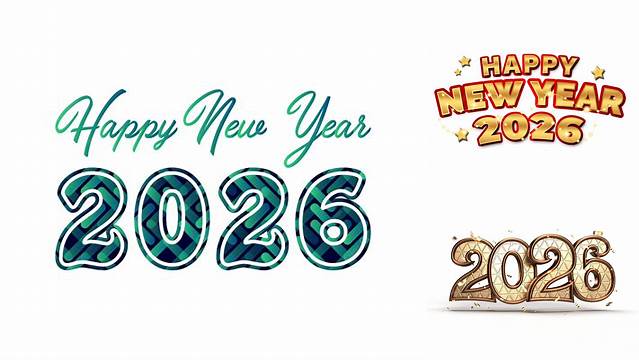
Hey guys! As we gear up for the excitement of 2026, one thing's for sure: we need our New Year's celebrations to be epic. And what better way to add that extra sparkle than with the perfect font? Whether you're designing invitations, creating social media posts, or just want to jazz up your holiday messages, the right font can make all the difference. So, let's dive into the world of Happy New Year 2026 fonts and how you can snag some free downloads! It's all about making your greetings stand out, and I'm here to guide you through every step. Think of this as your ultimate guide to typographic cheer for the coming year. We'll explore different styles, where to find them, and even some tips on how to use them effectively. Let's get this party started with fonts that scream "Happy New Year!"
1. Best Fonts for New Year 2026 Greetings
Choosing the best fonts for New Year 2026 greetings is crucial to setting the right tone for your messages. You want something that captures the spirit of celebration and anticipation for the year ahead. Think about fonts that exude joy, elegance, and a touch of sparkle. For example, script fonts can add a touch of sophistication and flair, perfect for formal invitations or heartfelt messages. On the other hand, bold and modern fonts can convey a sense of energy and excitement, ideal for social media posts or party announcements. Remember, the font you choose should reflect the mood you want to create. Are you aiming for a classic, timeless feel? Or perhaps something more contemporary and trendy? Understanding your desired aesthetic will help you narrow down your options and select the perfect font that makes your New Year's greetings truly memorable. Let's explore some specific font styles and how they can enhance your festive communications. Don't underestimate the power of typography; it's a subtle yet significant element that can elevate your New Year's greetings from ordinary to extraordinary.
2. Free Calligraphy Fonts for New Year 2026
Looking for something fancy and elegant? Free calligraphy fonts for New Year 2026 can add a touch of sophistication to your projects. Calligraphy fonts are perfect for creating a sense of luxury and refinement, making them an excellent choice for formal invitations, elegant cards, or any design that needs a touch of class. Imagine using a beautiful, flowing script to write "Happy New Year 2026" on a stunning backdrop – the effect is simply breathtaking! However, it's important to use calligraphy fonts sparingly and strategically. Overusing them can make your design look cluttered or overwhelming. Instead, pair a calligraphy font with a simpler, more readable font for the body text to ensure balance and clarity. When selecting a calligraphy font, consider the overall style and mood you want to convey. Some calligraphy fonts are delicate and romantic, while others are bold and dramatic. Choose one that complements your design aesthetic and enhances your message. With the right calligraphy font, your New Year 2026 designs will exude elegance and charm, leaving a lasting impression on your audience. Let's explore some specific styles and where you can find these gems for free.
3. Download Free Script Fonts for New Year 2026
If calligraphy is a bit too formal, consider downloading free script fonts for New Year 2026. Script fonts offer a more relaxed yet stylish alternative, perfect for adding a personal touch to your greetings. These fonts mimic handwriting, giving your designs a warm and inviting feel. They're great for everything from social media posts to personalized messages, adding a touch of personality and charm. Think about using a playful script font for a casual New Year's party invitation or a more elegant script for heartfelt holiday cards. The versatility of script fonts makes them a fantastic choice for a wide range of New Year's projects. When choosing a script font, readability is key. While you want something stylish, make sure it's still easy to read, especially in smaller sizes. Also, consider the overall tone of the font. Some script fonts are whimsical and fun, while others are more sophisticated and refined. Select a font that aligns with your message and design aesthetic. With the right script font, your New Year 2026 greetings will feel personal, heartfelt, and stylish. Let's dive into some fantastic options and where you can find them without spending a dime!
4. Elegant Fonts for New Year 2026 Designs
For a touch of class, elegant fonts for New Year 2026 designs are the way to go. These fonts exude sophistication and refinement, perfect for creating a luxurious and polished look. Think of using them for high-end invitations, formal announcements, or any design where you want to convey a sense of elegance. Elegant fonts often feature delicate lines, graceful curves, and a timeless appeal. They can range from classic serif fonts to more modern and stylized options, allowing you to find the perfect fit for your project. When using elegant fonts, consider the overall design aesthetic. Pair them with clean layouts, subtle colors, and high-quality images to create a cohesive and sophisticated look. Avoid using too many fonts in one design, as this can detract from the elegance and clarity. Instead, focus on using one or two elegant fonts sparingly and strategically. With the right elegant font, your New Year 2026 designs will make a lasting impression, conveying a sense of style and refinement. Let's explore some specific examples and how they can elevate your festive creations.
5. Modern Fonts for New Year 2026 Celebrations
If you're aiming for a contemporary vibe, modern fonts for New Year 2026 celebrations are your best bet. These fonts are sleek, stylish, and perfect for creating a cutting-edge look. They often feature clean lines, geometric shapes, and a minimalist aesthetic, making them ideal for social media graphics, digital invitations, and any design that needs a modern touch. Modern fonts can range from bold and impactful to subtle and understated, allowing you to create a variety of different looks. When using modern fonts, consider the overall tone of your design. Do you want to convey a sense of energy and excitement, or a more sophisticated and understated feel? Choose a font that aligns with your message and target audience. Also, pay attention to readability. While modern fonts can be incredibly stylish, make sure they're still easy to read, especially in smaller sizes. With the right modern font, your New Year 2026 celebrations will have a fresh, contemporary feel. Let's check out some top modern font choices to make your designs pop!
6. Festive Fonts: New Year 2026 Free Download
Who doesn't love a festive font? Getting a New Year 2026 free download is even better! Festive fonts are designed to capture the joyful and celebratory spirit of the holiday season. They often feature whimsical details, playful shapes, and a sense of fun. Think of fonts with stars, sparkles, or other festive elements that add a touch of magic to your designs. These fonts are perfect for creating eye-catching invitations, cheerful social media posts, and any project that needs a dose of holiday cheer. When using festive fonts, don't be afraid to get creative. Experiment with different colors, sizes, and layouts to create a truly unique and memorable design. However, be mindful of readability. While festive fonts are fun, make sure your message is still clear and easy to read. Use them sparingly and pair them with simpler fonts for body text to ensure balance and clarity. With the right festive font, your New Year 2026 celebrations will be filled with joy and excitement. Let's uncover some awesome free downloads to get the party started!
7. Unique Fonts for New Year 2026 Greetings
Want your greetings to stand out? Unique fonts for New Year 2026 greetings are the answer! These fonts offer a fresh and distinctive look, perfect for making your messages memorable. Think outside the box and explore fonts that are unconventional, artistic, or simply different from the norm. Unique fonts can add personality, character, and a touch of creativity to your designs. They're great for everything from personalized cards to eye-catching social media posts. When choosing a unique font, consider your target audience and the overall tone of your message. Do you want to convey a sense of playfulness, sophistication, or something else entirely? Select a font that aligns with your vision and enhances your message. However, be mindful of readability. While unique fonts can be visually striking, make sure they're still easy to read, especially in smaller sizes. Use them strategically and pair them with simpler fonts for body text to ensure balance and clarity. With the right unique font, your New Year 2026 greetings will leave a lasting impression. Let's find some fonts that are sure to turn heads!
8. Best Font Styles for New Year 2026 Cards
Choosing the best font styles for New Year 2026 cards is essential for creating greetings that truly shine. The font you select can set the tone for your entire card, conveying everything from elegance to playfulness. Consider the overall aesthetic you're aiming for when making your choice. For formal cards, elegant serif or calligraphy fonts can add a touch of sophistication. For more casual greetings, script or sans-serif fonts might be a better fit. Think about the message you want to convey and choose a font that complements it. A heartfelt message might pair well with a warm, handwritten-style font, while a festive celebration card could benefit from a bold, eye-catching font. Don't be afraid to mix and match fonts, but be sure to do so sparingly and with intention. Pairing a decorative font with a simpler one can create a balanced and visually appealing design. With the right font style, your New Year 2026 cards will be memorable and impactful. Let's dive into some specific font styles that are perfect for New Year's cards!
9. Typography Trends for New Year 2026
Staying up-to-date with typography trends for New Year 2026 can help your designs feel fresh and modern. Typography trends evolve over time, so it's important to be aware of what's current and popular. In recent years, we've seen a rise in bold, geometric fonts, as well as a resurgence of vintage and retro styles. Hand-drawn and script fonts continue to be popular, adding a personal and artistic touch to designs. Consider incorporating these trends into your New Year 2026 greetings to make them feel contemporary and stylish. However, it's important to balance trends with timelessness. While it's great to experiment with new styles, make sure your font choices are still readable and appropriate for your message. A trendy font that sacrifices clarity won't be effective in the long run. Think about how you can incorporate current trends while maintaining a classic and elegant feel. With a keen eye on typography trends, your New Year 2026 designs will be both stylish and impactful. Let's explore some specific trends that are set to dominate the New Year!
10. Free Fonts for New Year 2026 Invitations
Planning a New Year's bash? You'll need amazing free fonts for New Year 2026 invitations! The right font can make your invitations stand out and set the tone for your party. Consider the style of your event when choosing a font. For a formal gathering, elegant serif or calligraphy fonts can add a touch of sophistication. For a more casual party, script or sans-serif fonts might be a better fit. Think about the overall theme of your party and choose a font that complements it. A glamorous black-tie event might call for a sleek and modern font, while a cozy house party could benefit from a warm and inviting handwritten-style font. Make sure your font is readable, even at smaller sizes. Your guests need to be able to easily read the details of your party, so prioritize clarity. With the right free font, your New Year 2026 invitations will be both stylish and informative. Let's discover some incredible free font options to make your invitations unforgettable!
11. Where to Find Free New Year 2026 Fonts
Okay, guys, the big question: where to find free New Year 2026 fonts? The internet is a treasure trove of free fonts, but it's important to know where to look. Several reputable websites offer a wide selection of high-quality fonts that you can download for free. Websites like Google Fonts, DaFont, and FontSquirrel are excellent resources for finding a variety of font styles. Be sure to check the licensing agreements for each font you download. Some fonts are free for personal use only, while others can be used for commercial projects. It's important to respect the font creator's terms and conditions. Consider using a font management tool to keep your font collection organized. This can help you easily browse and select fonts for your projects. With a little bit of research and the right resources, you can find a plethora of amazing free fonts for your New Year 2026 designs. Let's explore some top websites and tips for finding the perfect free font!
12. How to Choose the Right Font for New Year 2026
Choosing the right font for New Year 2026 can feel overwhelming, but it doesn't have to be! The key is to consider your project's purpose, audience, and overall aesthetic. Start by thinking about the message you want to convey. Are you aiming for elegance, playfulness, or something else entirely? Choose a font that aligns with your message and reinforces your brand. Consider your target audience. What fonts will resonate with them? A younger audience might appreciate a modern and trendy font, while an older audience might prefer a more classic and traditional style. Think about the overall design aesthetic. Does your project have a clean and minimalist feel, or is it more ornate and decorative? Choose a font that complements your design and enhances its visual appeal. Don't be afraid to experiment with different fonts, but be sure to maintain consistency and readability. With a thoughtful approach, you can choose the perfect font for your New Year 2026 designs. Let's break down the key factors to consider when making your font choice!
13. Font Pairing Tips for New Year 2026 Designs
Font pairing is an art! Great font pairing tips for New Year 2026 designs can elevate your projects from good to amazing. The secret lies in creating a visual hierarchy and balance. One common approach is to pair a decorative font with a simpler, more readable font. This allows the decorative font to stand out while ensuring that the body text remains clear and easy to read. Consider contrasting font styles. Pairing a serif font with a sans-serif font can create a visually interesting and dynamic design. However, be sure to choose fonts that complement each other in terms of weight, size, and overall tone. Limit the number of fonts you use in a single design. Too many fonts can create a cluttered and confusing look. Stick to two or three fonts at most for a cohesive and professional design. Experiment with different font pairings, but always prioritize readability and clarity. With the right font pairings, your New Year 2026 designs will be visually stunning and effective. Let's explore some tried-and-true font pairing strategies to make your designs shine!
14. Best Font Combinations for New Year 2026
Speaking of pairing, let's look at the best font combinations for New Year 2026. Some font pairings are just magic together, creating a harmonious and visually appealing design. A classic combination is pairing a serif font like Times New Roman or Garamond with a sans-serif font like Helvetica or Arial. This creates a timeless and elegant look that's perfect for formal invitations or announcements. For a more modern and playful feel, consider pairing a script font like Brush Script with a sans-serif font like Open Sans. This combination is great for social media graphics or casual party invitations. If you're looking for a bold and impactful combination, try pairing a heavy sans-serif font like Montserrat with a lighter sans-serif font like Lato. This creates a strong visual contrast that's perfect for headlines and titles. Experiment with different font combinations to find the perfect pairings for your New Year 2026 designs. The key is to create a balance and visual interest while maintaining readability and clarity. Let's dive into some specific font combinations that are sure to impress!
15. Free Commercial Use Fonts for New Year 2026
Planning to use these fonts for business? Free commercial use fonts for New Year 2026 are what you need! When using fonts for commercial projects, it's crucial to ensure that you have the proper licensing rights. Many free fonts are available for personal use only, meaning you can't use them for projects that generate income. However, there are also plenty of free fonts that are licensed for commercial use. Websites like Google Fonts and FontSquirrel offer a wide selection of fonts that can be used for both personal and commercial projects. Always check the licensing agreement for each font you download to ensure that you're complying with the terms and conditions. Look for fonts that are licensed under the SIL Open Font License (OFL) or Creative Commons licenses, as these typically allow for commercial use. Using free commercial use fonts can save you money while still allowing you to create professional and impactful designs for your New Year 2026 projects. Let's explore some top resources for finding these valuable fonts!
16. How to Install New Fonts for New Year 2026
Got those free fonts downloaded? Now, how to install new fonts for New Year 2026? Installing new fonts is a straightforward process, but it can vary slightly depending on your operating system. On Windows, you can typically install a font by right-clicking the font file and selecting "Install." Alternatively, you can copy the font file to the Fonts folder in your Windows directory. On macOS, you can install a font by double-clicking the font file and clicking the "Install Font" button in the Font Book application. You can also drag and drop font files into the Font Book application. Once a font is installed, it should be available for use in all of your applications. If you're having trouble installing a font, try restarting your computer or checking the font file for errors. A font management tool can also help streamline the font installation process. With a few simple steps, you can add new fonts to your system and start using them in your New Year 2026 designs. Let's walk through the installation process step-by-step!
17. New Year 2026 Font Trends in Graphic Design
If you're a graphic designer, you need to know the New Year 2026 font trends in graphic design! The world of graphic design is constantly evolving, and typography is no exception. Staying on top of the latest font trends can help your designs feel fresh, modern, and impactful. In recent years, we've seen a rise in bold and experimental fonts, as well as a resurgence of vintage and retro styles. Hand-drawn and script fonts continue to be popular, adding a personal and artistic touch to designs. Consider incorporating these trends into your New Year 2026 designs to make them stand out. However, it's important to balance trends with timelessness. While it's great to experiment with new styles, make sure your font choices are still readable and appropriate for your message. A trendy font that sacrifices clarity won't be effective in the long run. Think about how you can incorporate current trends while maintaining a classic and elegant feel. With a keen eye on font trends, your New Year 2026 designs will be both stylish and impactful. Let's explore the specific trends that are set to dominate the graphic design scene!
18. Best Fonts for New Year 2026 Social Media Posts
Social media is key, so let's talk about the best fonts for New Year 2026 social media posts! Your font choice can have a big impact on how your posts are received. For social media, you want fonts that are eye-catching, readable, and on-brand. Bold and modern sans-serif fonts are a great choice for headlines and titles, as they grab attention and convey a sense of energy. Script and handwritten fonts can add a personal touch to your posts, making them feel more authentic and engaging. However, be sure to use these fonts sparingly, as they can be difficult to read in large blocks of text. Consider using a font pairing strategy to create visual interest. Pairing a bold sans-serif font with a lighter sans-serif font or a script font can create a dynamic and balanced look. Make sure your fonts are legible on both desktop and mobile devices. Social media is often consumed on the go, so prioritize readability. With the right fonts, your New Year 2026 social media posts will be engaging, impactful, and on-brand. Let's explore some top font choices for social media success!
19. Free Font Resources for New Year 2026 Projects
Let's dig into the free font resources for New Year 2026 projects! Finding the perfect font can be a breeze with the right resources. Several websites offer a wide selection of free fonts that you can use for your New Year's designs. Google Fonts is a fantastic resource, offering a vast library of open-source fonts that are free for both personal and commercial use. DaFont is another popular website, with a diverse collection of fonts submitted by designers from around the world. FontSquirrel is a great option for finding high-quality fonts that are licensed for commercial use. Be sure to check the licensing agreements for each font you download to ensure that you're complying with the terms and conditions. Consider using a font management tool to keep your font collection organized. This can help you easily browse and select fonts for your projects. With these free font resources at your fingertips, you'll have no trouble finding the perfect fonts for your New Year 2026 designs. Let's explore these resources in more detail and discover some hidden gems!
20. New Year 2026 Font Design Inspiration
Feeling stuck? Let's get some New Year 2026 font design inspiration flowing! Sometimes, the best way to find the perfect font is to look at examples of great design. Browse online design galleries, social media platforms, and typography blogs to see how other designers are using fonts for New Year's projects. Pay attention to font pairings, color palettes, and overall design aesthetics. Consider the message you want to convey and how the fonts contribute to that message. Look for fonts that evoke the spirit of celebration, joy, and anticipation for the new year. Don't be afraid to experiment with different styles and approaches. Try combining traditional fonts with modern elements, or using unexpected color combinations to create a unique look. Remember, inspiration can come from anywhere. Keep your eyes open and your mind receptive to new ideas. With a little inspiration, you can create stunning font designs for your New Year 2026 projects. Let's dive into some specific examples of inspiring New Year's designs!
21. New Year 2026 Headline Fonts Free Download
Grab attention with New Year 2026 headline fonts free download! Headlines are crucial for grabbing your audience's attention, so choosing the right font is essential. For headlines, you want fonts that are bold, eye-catching, and easy to read. Sans-serif fonts are a great choice for headlines, as they tend to be clean and modern. However, serif fonts can also work well, especially for more formal or traditional designs. Consider the overall tone of your message when choosing a headline font. A celebratory message might benefit from a playful or festive font, while a more serious message might call for a more formal and understated font. Think about the size and weight of the font. Headlines need to be large enough to be easily seen, but not so large that they overwhelm the design. Experiment with different fonts and font sizes to find the perfect balance. With the right headline font, your New Year 2026 designs will be sure to grab attention. Let's uncover some amazing free headline font options!
22. New Year 2026 Body Text Fonts Free Download
Don't forget the body! New Year 2026 body text fonts free download are just as important. While headlines grab attention, body text is where you convey your message. For body text, readability is key. Choose fonts that are clear, legible, and easy on the eyes. Serif fonts are often a good choice for body text, as they tend to be more readable in large blocks of text. However, some sans-serif fonts can also work well, especially for digital designs. Consider the size and spacing of the font. Body text needs to be large enough to be easily read, but not so large that it looks overwhelming. Proper line spacing and letter spacing can also improve readability. Think about the overall tone of your message when choosing a body text font. A formal message might call for a more traditional font, while a casual message might be better suited to a more modern font. With the right body text font, your New Year 2026 designs will be both informative and visually appealing. Let's explore some top free body text font choices!
23. New Year 2026 Display Fonts Free Download
Need something extra special? New Year 2026 display fonts free download are perfect! Display fonts are designed to be eye-catching and attention-grabbing, making them ideal for headlines, titles, and other prominent design elements. These fonts often feature unique shapes, decorative details, and bold styles. When choosing a display font, consider the overall tone of your design. A festive design might benefit from a whimsical or playful font, while a more elegant design might call for a more sophisticated font. Think about the size and placement of the font. Display fonts are typically used in larger sizes, so make sure they're legible and don't overwhelm the design. Experiment with different colors, effects, and styles to make your display fonts stand out. However, be sure to use display fonts sparingly. Too many display fonts can create a cluttered and confusing look. With the right display font, your New Year 2026 designs will make a statement. Let's uncover some incredible free display font options!
24. New Year 2026 Cursive Fonts Free Download
Add a personal touch with New Year 2026 cursive fonts free download! Cursive fonts, also known as script fonts, mimic handwriting and can add a personal and elegant touch to your designs. These fonts are perfect for invitations, cards, and other projects where you want to convey a sense of warmth and intimacy. When choosing a cursive font, consider the overall tone of your message. A heartfelt message might pair well with a flowing and romantic cursive font, while a more casual message might be better suited to a more playful and whimsical cursive font. Think about the readability of the font. Cursive fonts can sometimes be difficult to read, so choose one that's clear and legible. Consider the size and spacing of the font. Cursive fonts often look best in larger sizes, but be sure to adjust the spacing so that the letters don't overlap. With the right cursive font, your New Year 2026 designs will feel personal and heartfelt. Let's explore some beautiful free cursive font options!
25. New Year 2026 Serif Fonts Free Download
For a classic touch, check out New Year 2026 serif fonts free download! Serif fonts are characterized by the small decorative strokes, called serifs, that extend from the main strokes of the letters. These fonts are often considered to be more traditional and formal, making them a great choice for elegant designs. Serif fonts are also highly readable, making them a good option for body text. When choosing a serif font, consider the overall tone of your message. A formal message might call for a classic serif font like Times New Roman or Garamond, while a more modern message might be better suited to a contemporary serif font like Playfair Display. Think about the size and spacing of the font. Serif fonts often look best with a bit of extra line spacing, as this can improve readability. With the right serif font, your New Year 2026 designs will have a timeless and sophisticated feel. Let's uncover some top free serif font choices!
26. New Year 2026 Sans-Serif Fonts Free Download
For a modern feel, grab New Year 2026 sans-serif fonts free download! Sans-serif fonts lack the small decorative strokes that characterize serif fonts. This gives them a clean, modern, and minimalist look. Sans-serif fonts are a great choice for headlines, titles, and other prominent design elements, as they tend to be bold and eye-catching. They're also a good option for digital designs, as they often render well on screens. When choosing a sans-serif font, consider the overall tone of your message. A modern message might call for a geometric sans-serif font like Montserrat or Futura, while a more playful message might be better suited to a more rounded sans-serif font like Open Sans. Think about the weight and size of the font. Sans-serif fonts can range from light and airy to heavy and impactful, so choose one that suits your design. With the right sans-serif font, your New Year 2026 designs will have a contemporary and stylish feel. Let's explore some fantastic free sans-serif font options!
27. New Year 2026 Bold Fonts Free Download
Make a statement with New Year 2026 bold fonts free download! Bold fonts are designed to grab attention and make a statement. These fonts are heavier and more impactful than regular fonts, making them ideal for headlines, titles, and other prominent design elements. When choosing a bold font, consider the overall tone of your message. A strong and confident message might benefit from a heavy and impactful bold font, while a more playful message might be better suited to a slightly lighter bold font. Think about the readability of the font. While bold fonts are eye-catching, they can sometimes be difficult to read in large blocks of text. Use them sparingly and pair them with simpler fonts for body text. Consider the size and spacing of the font. Bold fonts often look best in larger sizes, but be sure to adjust the spacing so that the letters don't crowd each other. With the right bold font, your New Year 2026 designs will be sure to make an impact. Let's uncover some awesome free bold font choices!
28. New Year 2026 Italic Fonts Free Download
Add emphasis with New Year 2026 italic fonts free download! Italic fonts are slanted versions of regular fonts, designed to add emphasis and visual interest to your designs. These fonts are great for highlighting key words or phrases, adding a touch of elegance, or creating a sense of movement. When choosing an italic font, consider the overall tone of your message. A formal message might call for a classic italic font, while a more casual message might be better suited to a more playful italic font. Think about the readability of the font. Italic fonts can sometimes be difficult to read in large blocks of text, so use them sparingly. Consider the size and spacing of the font. Italic fonts often look best with a bit of extra line spacing, as this can improve readability. With the right italic font, your New Year 2026 designs will have a touch of sophistication and emphasis. Let's explore some great free italic font options!
29. New Year 2026 Outline Fonts Free Download
Get creative with New Year 2026 outline fonts free download! Outline fonts feature only the outlines of the letters, creating a unique and eye-catching effect. These fonts are great for headlines, titles, and other prominent design elements where you want to add a touch of creativity and visual interest. When choosing an outline font, consider the overall tone of your design. An edgy and modern design might benefit from a bold and geometric outline font, while a more delicate design might be better suited to a thinner and more refined outline font. Think about the fill color you'll use for the outline. The fill color can have a big impact on the overall look and feel of the font. Consider the size and spacing of the font. Outline fonts often look best in larger sizes, but be sure to adjust the spacing so that the outlines don't overlap. With the right outline font, your New Year 2026 designs will be unique and memorable. Let's uncover some fantastic free outline font choices!
30. Tips for Using Fonts in New Year 2026 Designs
Alright, let's wrap it up with some tips for using fonts in New Year 2026 designs! Choosing the right fonts is just the first step. Using them effectively is what truly makes your designs shine. First, prioritize readability. No matter how stylish a font is, it's useless if people can't read it. Choose fonts that are clear and legible, especially for body text. Secondly, consider your audience. What fonts will resonate with them? A younger audience might appreciate a modern and trendy font, while an older audience might prefer a more classic style. Third, create a visual hierarchy. Use different font sizes, weights, and styles to guide the viewer's eye and highlight key information. Fourth, limit your font choices. Too many fonts can create a cluttered and confusing look. Stick to two or three fonts at most. Finally, don't be afraid to experiment! Try different font pairings, color combinations, and layouts to find what works best for your project. With these tips in mind, your New Year 2026 designs will be both beautiful and effective. Let's recap the key takeaways to ensure your font game is strong! Remember, the right fonts can make all the difference in creating memorable and impactful New Year's greetings.